In the highly competitive skincare industry, branding plays a crucial role in attracting customers. One of the most overlooked but essential elements of branding is typography. The right font can enhance your brand identity, build trust, and create a lasting impression. If you’re looking to choose the perfect fonts for your skincare business, this guide will help you make an informed decision.
1. Understand Your Brand Identity
Before selecting a font, define your brand’s personality. Are you aiming for a luxurious, organic, clinical, or youthful image? Your font choice should align with your brand’s values and message.
- Luxury Skincare: Opt for elegant serif fonts like Playfair Display or Garamond.
- Organic & Natural Skincare: Handwritten or script fonts like Amsterdam Font or Ballpoint Looking Font create an organic and approachable feel.
- Clinical & Dermatologist-Approved: Sans-serif fonts like MAXIM or Lato project professionalism and credibility.
- Youthful & Fun Skincare: Playful, rounded fonts like Smile Dream or Poppins make your brand appear fresh and friendly.
2. Prioritize Readability
Skincare packaging and branding materials often contain essential details like ingredients and benefits. Ensure your chosen font is easy to read across all platforms, from product labels to social media.
- Avoid overly decorative fonts for body text.
- Maintain a good contrast between text and background.
- Choose a font with clear letter spacing for legibility.
3. Pair Fonts Strategically
Using a combination of fonts can create a balanced and cohesive brand identity. Here’s how to pair them effectively:
- Serif + Sans-Serif: Classic and professional. Example: Playfair Display (heading) + Lato (body text).
- Script + Sans-Serif: Elegant yet modern. Example: Amsterdam Font (logo) + Open Sans (product description). Please see the image sample below :
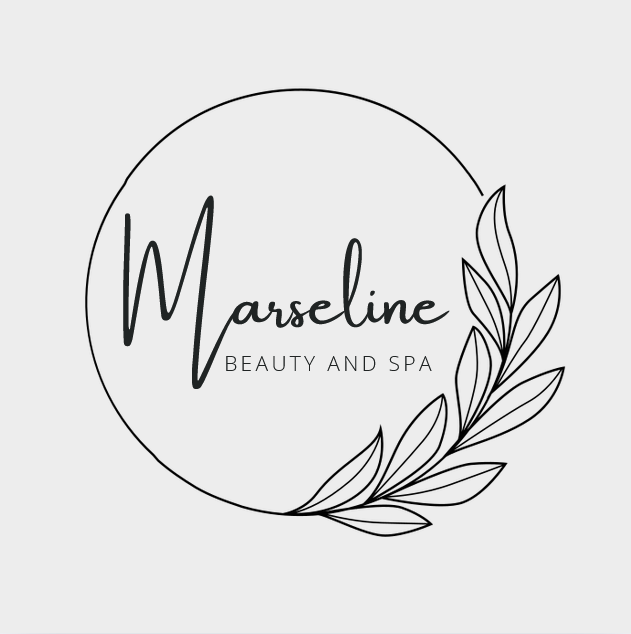
- Bold + Minimal: Perfect for standout branding. Example: MAXIM (headline) + Roboto (details).
4. Ensure Versatility
Your font choice should work across various platforms, including:
- Website & Social Media
- Product Packaging
- Business Cards & Marketing Materials
- Advertisements & Promotional Content
Fonts that are too intricate might look great on a website but become unreadable on smaller packaging. Always test fonts on different mediums before finalizing your choice.
5. Use High-Quality and Licensed Fonts
Avoid using generic fonts that don’t stand out. Instead, invest in premium or custom fonts that enhance your branding. Platforms like Creative Market, MyFonts, and Font Therapy offer unique, high-quality fonts for skincare brands.
Conclusion
Choosing the perfect font for your skincare business is more than just aesthetics—it’s about communication and brand perception. By aligning typography with your brand’s identity, prioritizing readability, pairing fonts strategically, ensuring versatility, and using high-quality fonts, you can create a strong and memorable brand presence in the skincare industry.